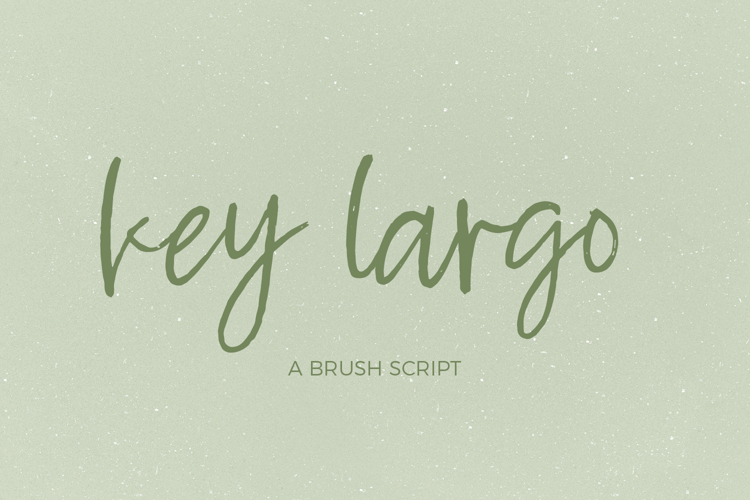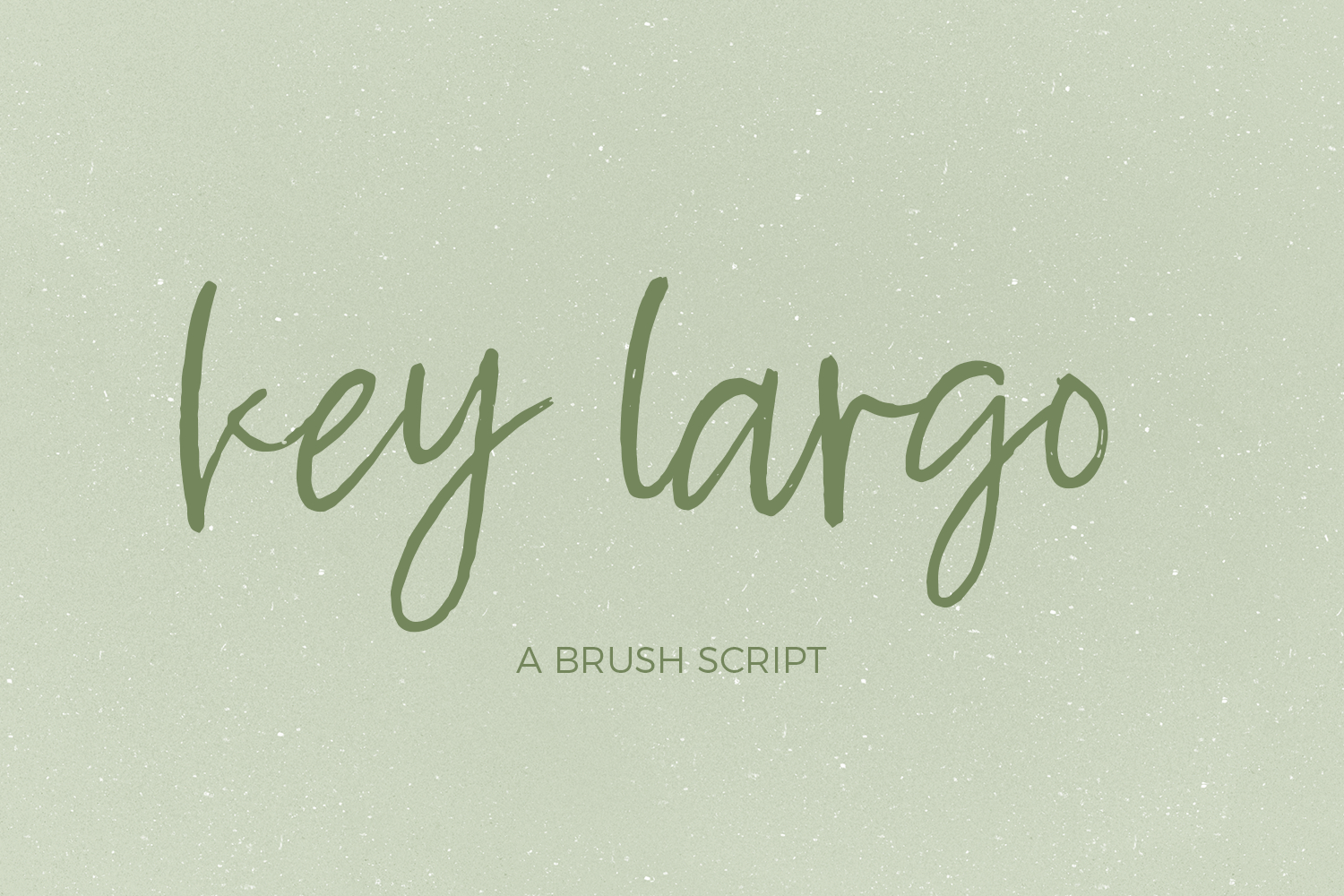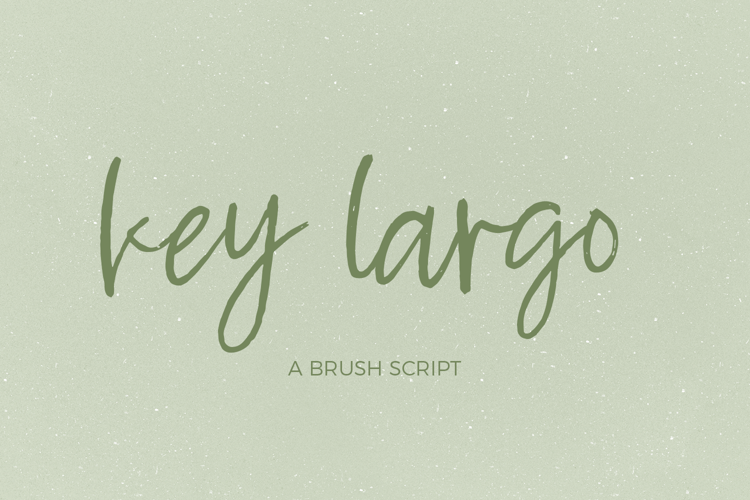
Key Largo Brush Script is a new casual script release - a little neat, a little signature, and just the perfect amount of grit + texture.
Key Largo Brush Script is an excellent fit for:
- logos & branding with a modern twist
- website headings & titles
- quote graphics
- any project needing a legible, but handwritten, font
Key Largo Brush Script includes:
- 26 lowercase alternates
- common double-letter ligatures bb, cc, dd, ee, ff, gg, ll, mm, nn, oo, pp, rr, ss, tt